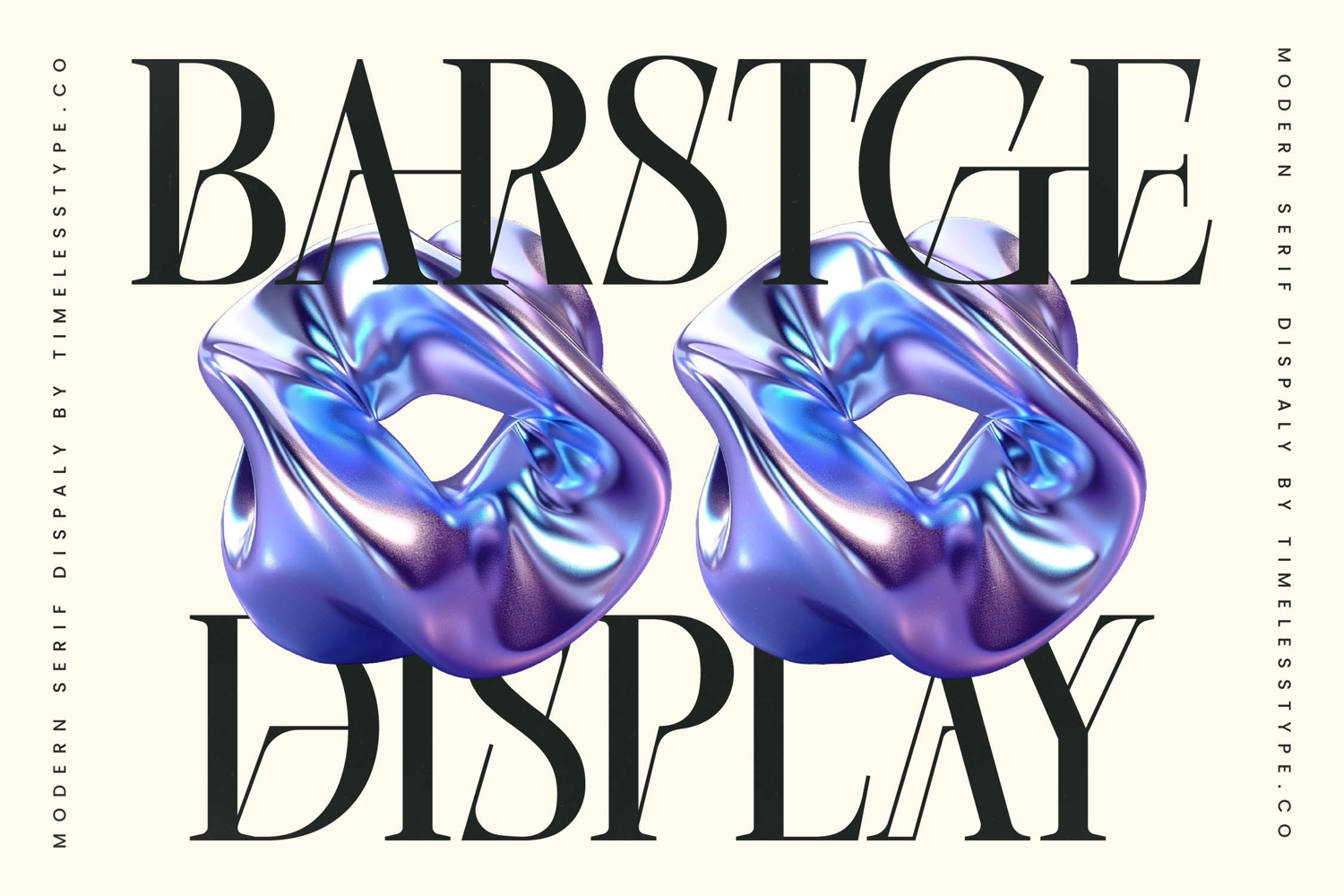
Barstge - Modern Serif Display
Barstge Typeface is a modern serif display font that combines elegance, refinement, and bold sophistication. Designed with high contrast strokes, sleek serifs, and a contemporary geometric balance, this typeface is crafted to deliver a luxurious and stylish impression. Its tall proportions and sharp details emphasize clarity while maintaining an artistic edge, making it a perfect choice for projects where typography must embody both strength and elegance. Barstge stands out as a statement font, ideal for high-impact designs that require a polished and timeless aesthetic.